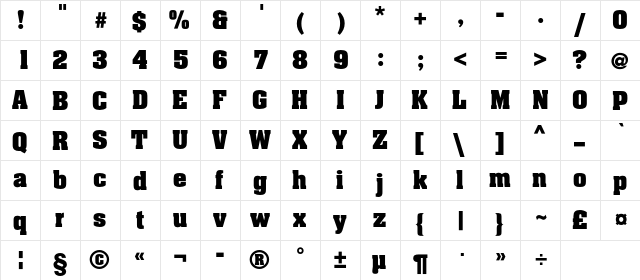
AdamantC Regular
Design Context for AdamantC Typeface
AdamantC takes a measured approach to typography — its balanced proportions and neutral character make it a reliable workhorse for both digital and print work.